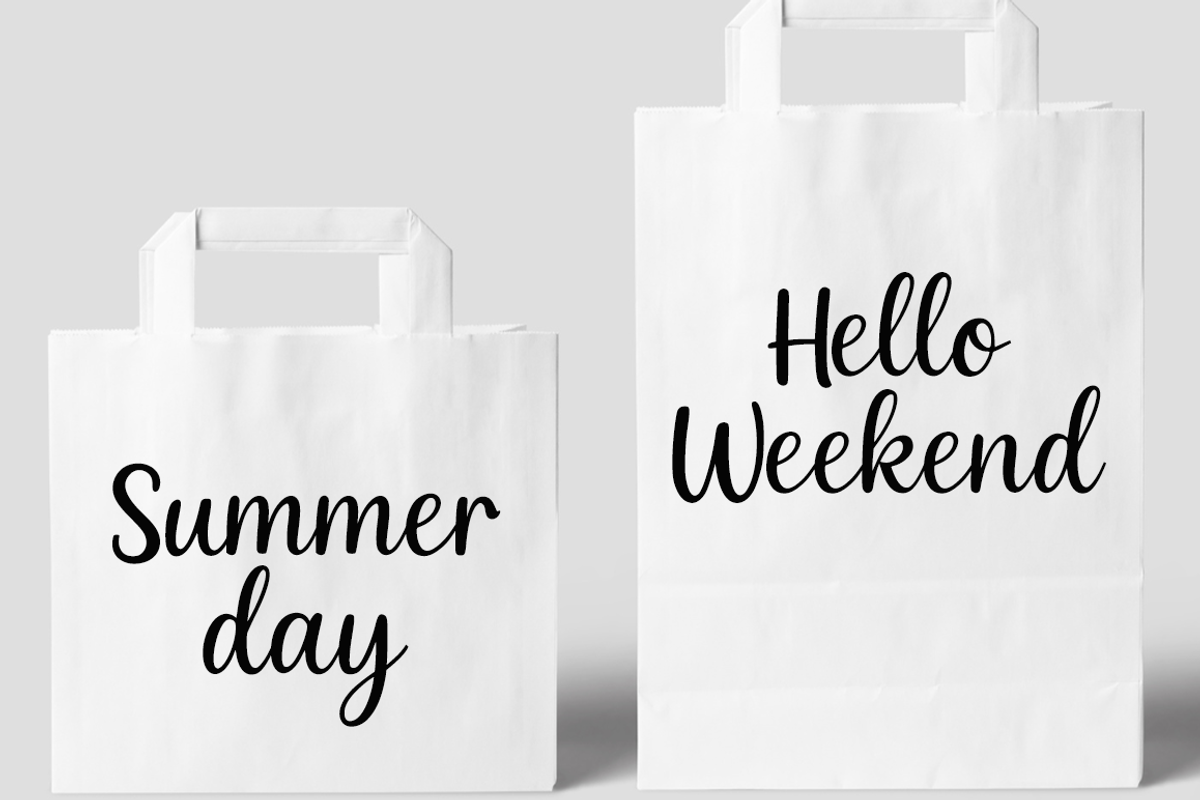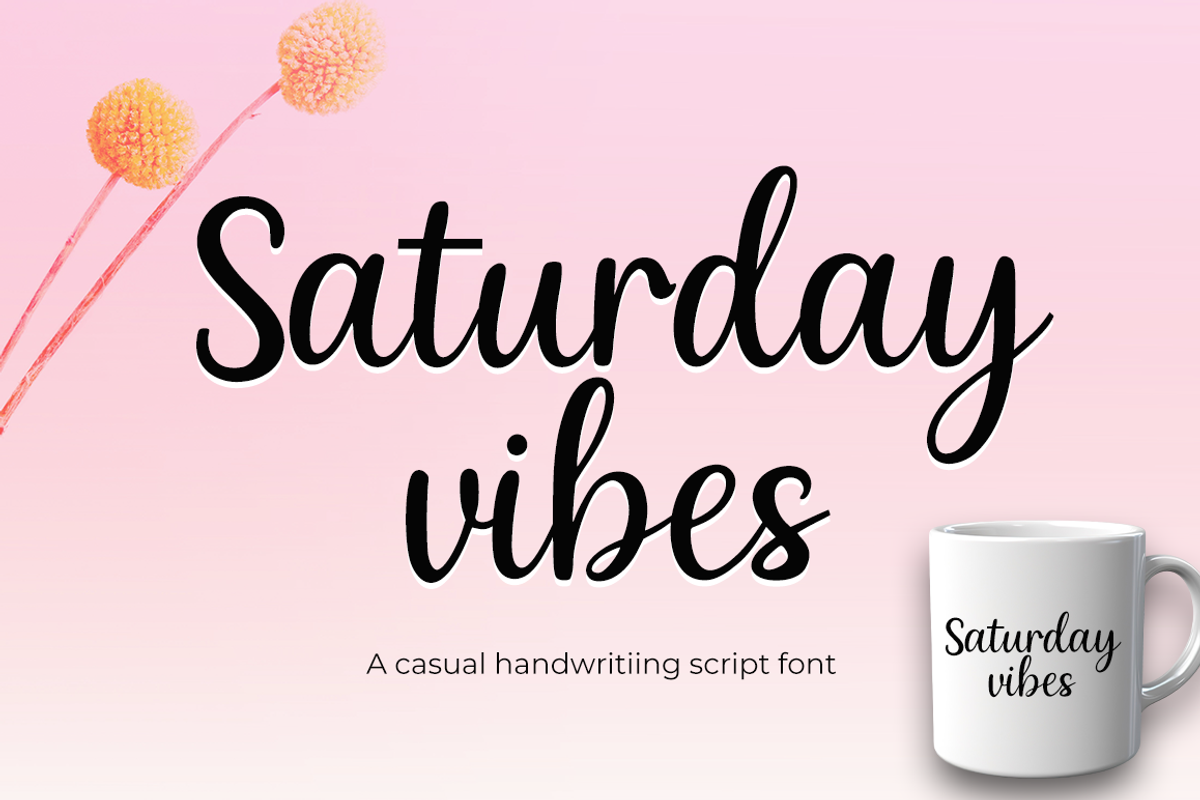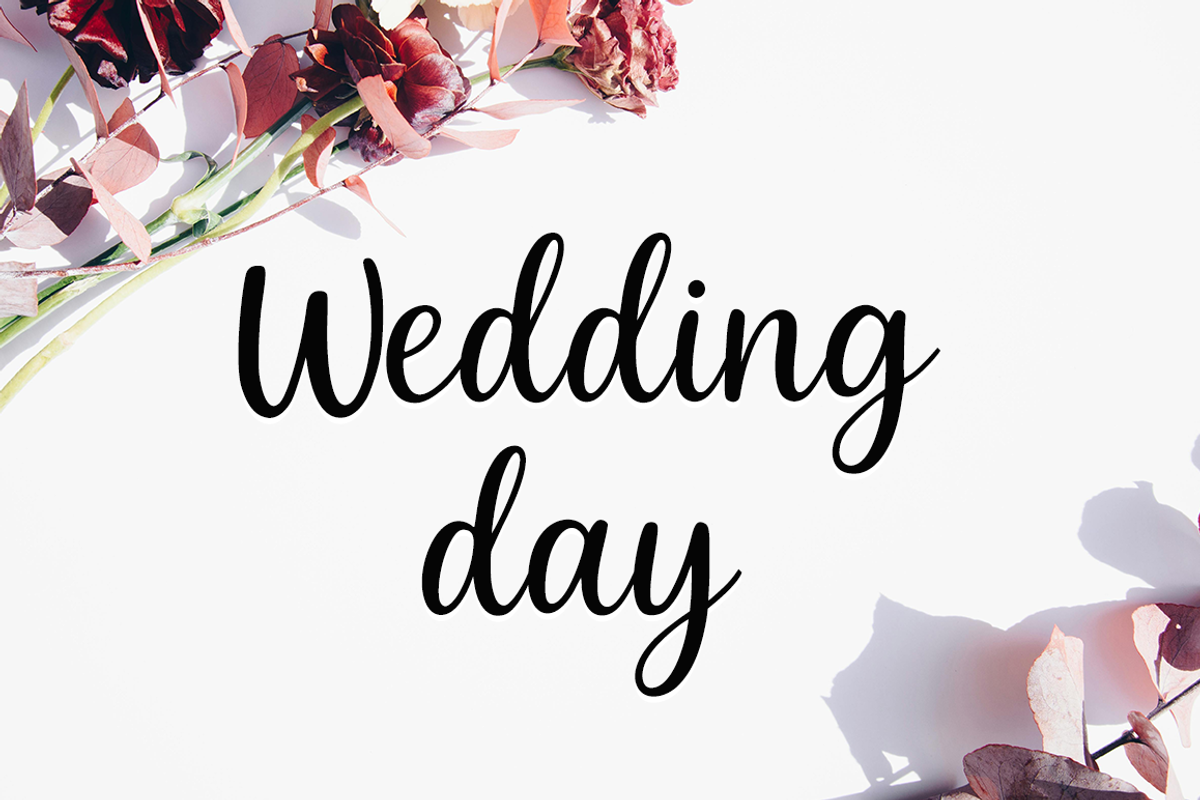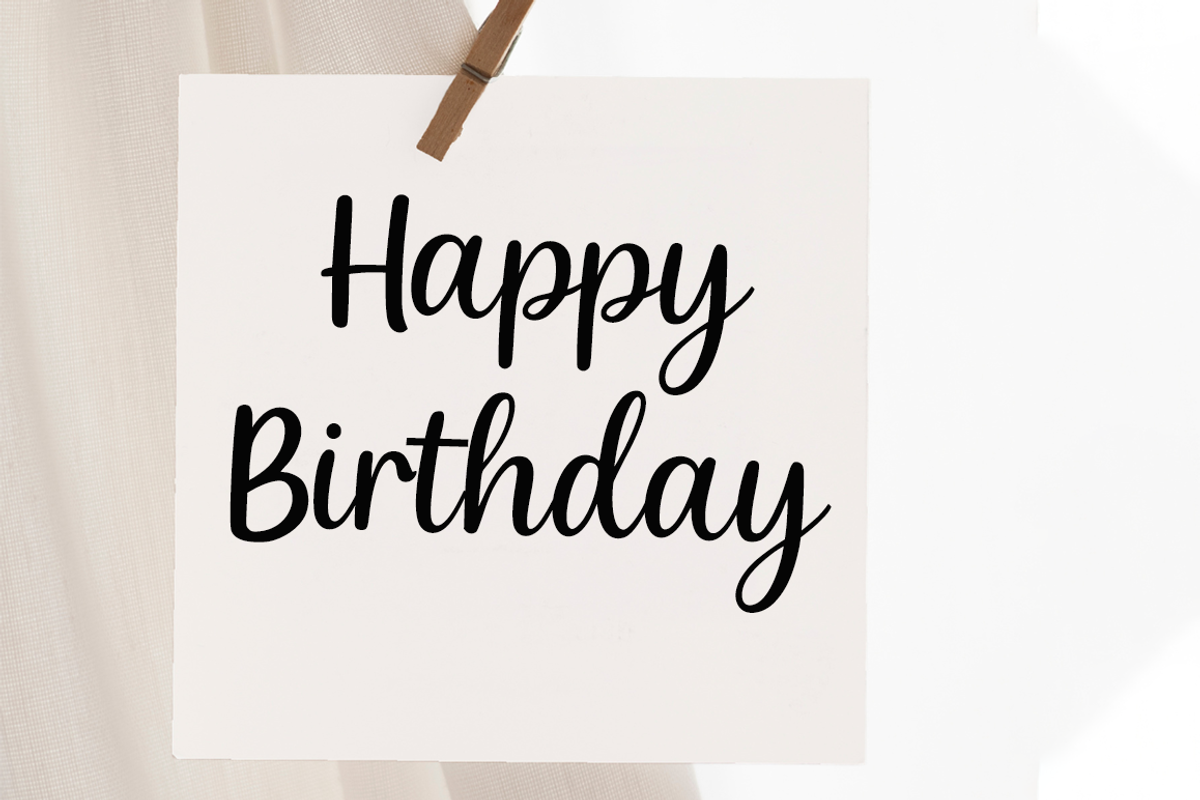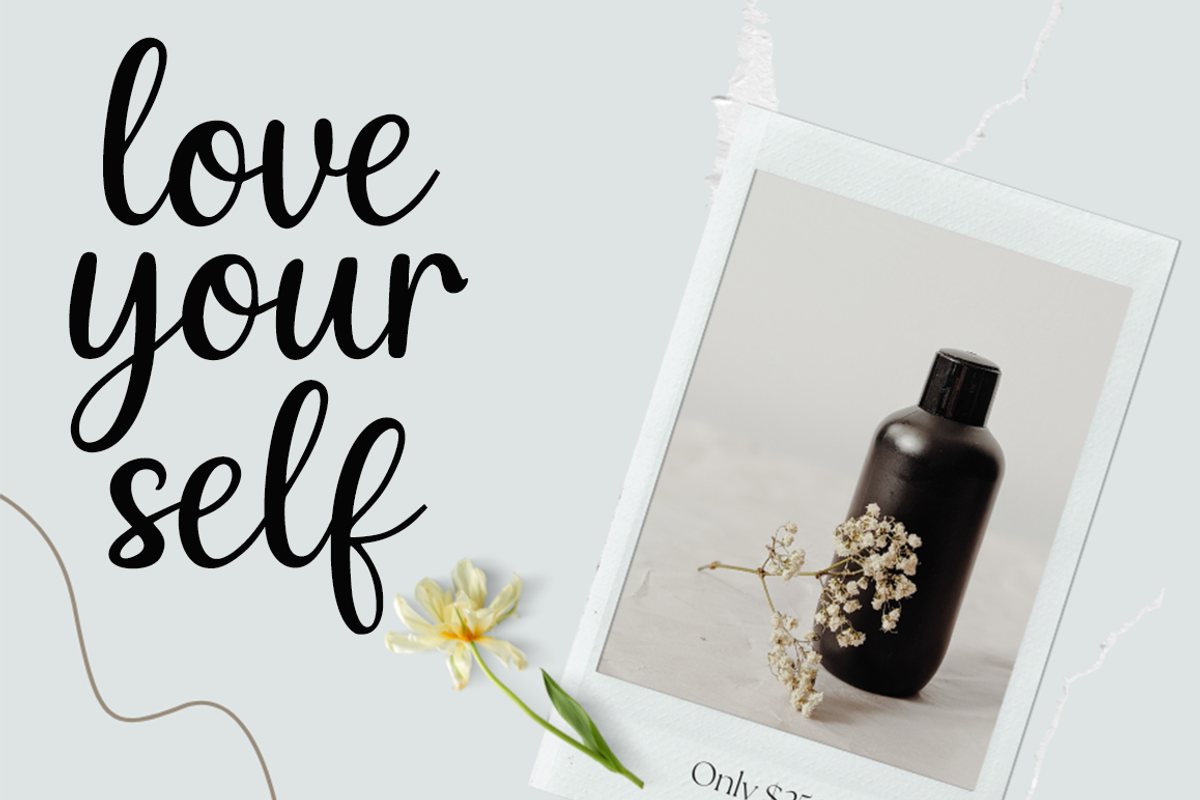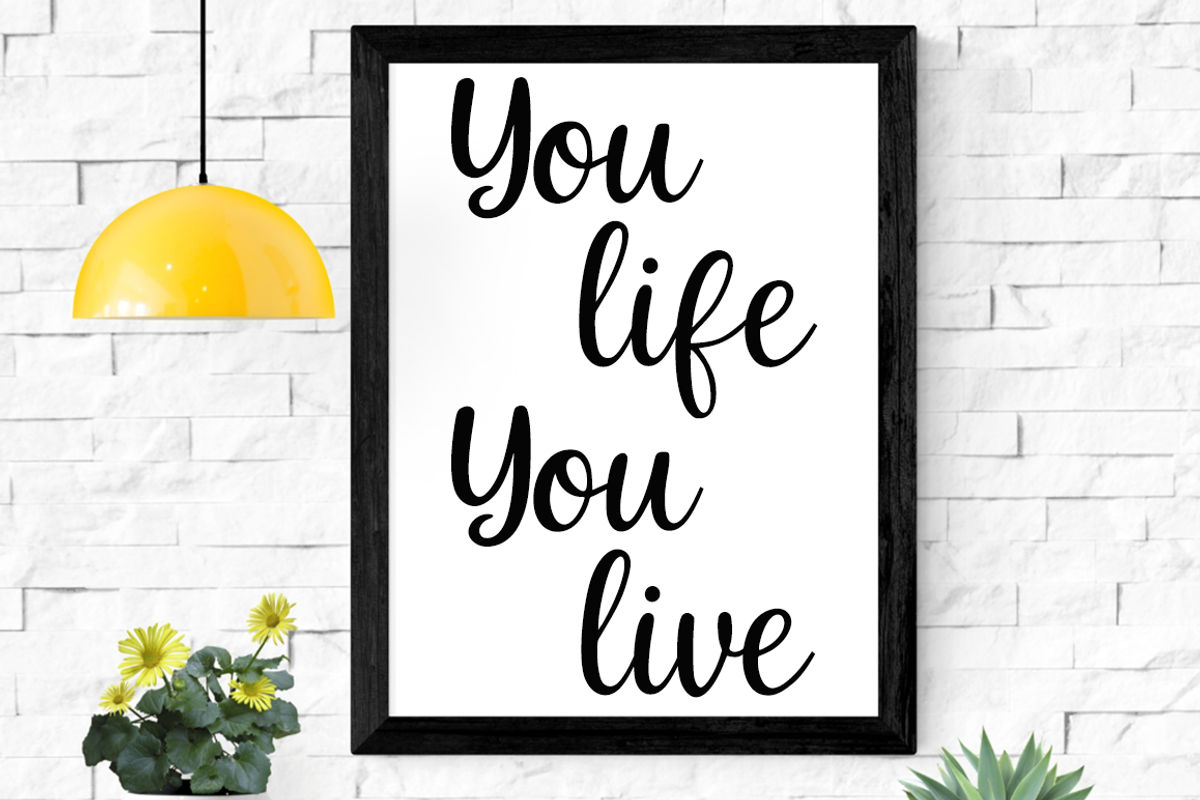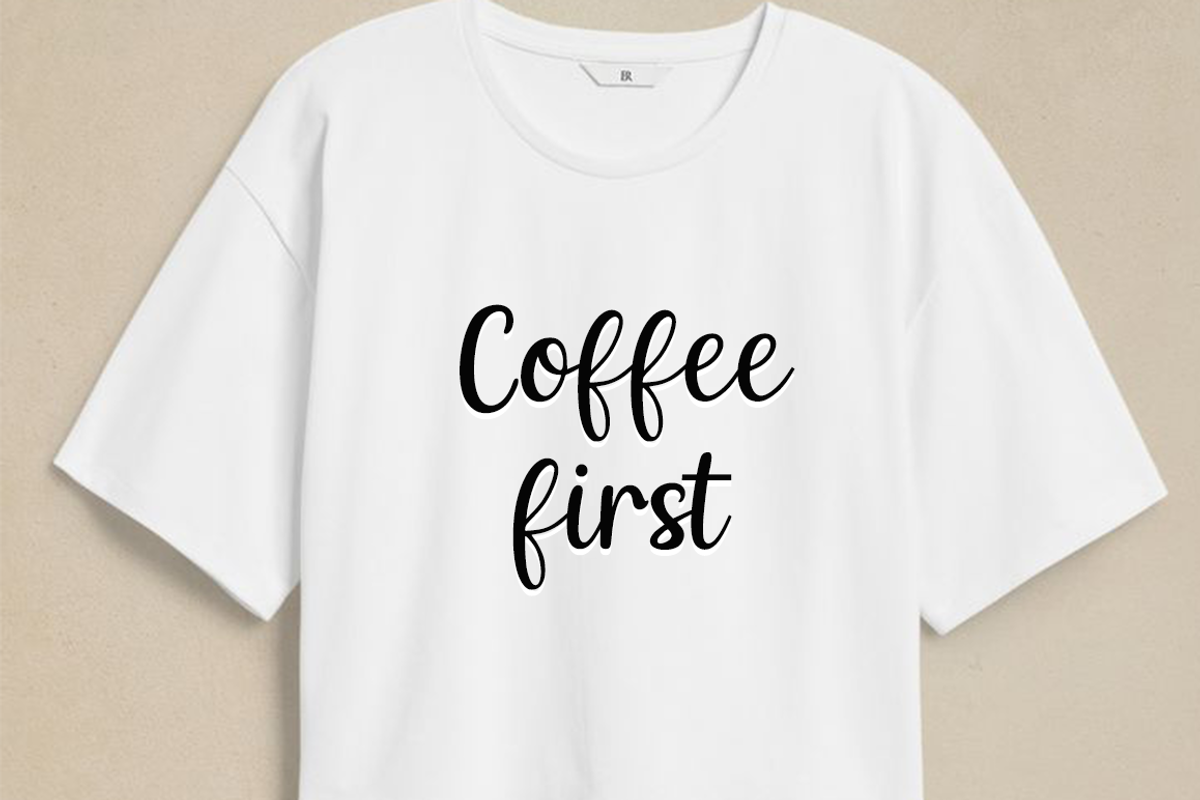
Saturday vibes font
Saturday Vibes is a casual and elegant script font with a handwritten feel. Perfect for quotes, greeting cards, t-shirts, and planners. Its smooth curves and playful style make it ideal for any creative project that needs a relaxed and friendly touch.